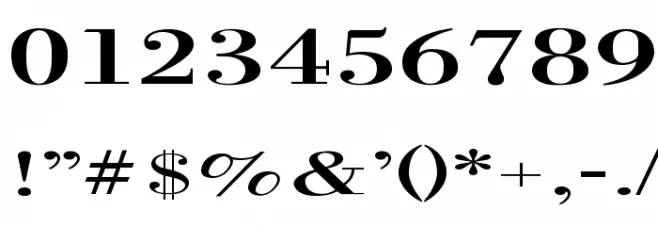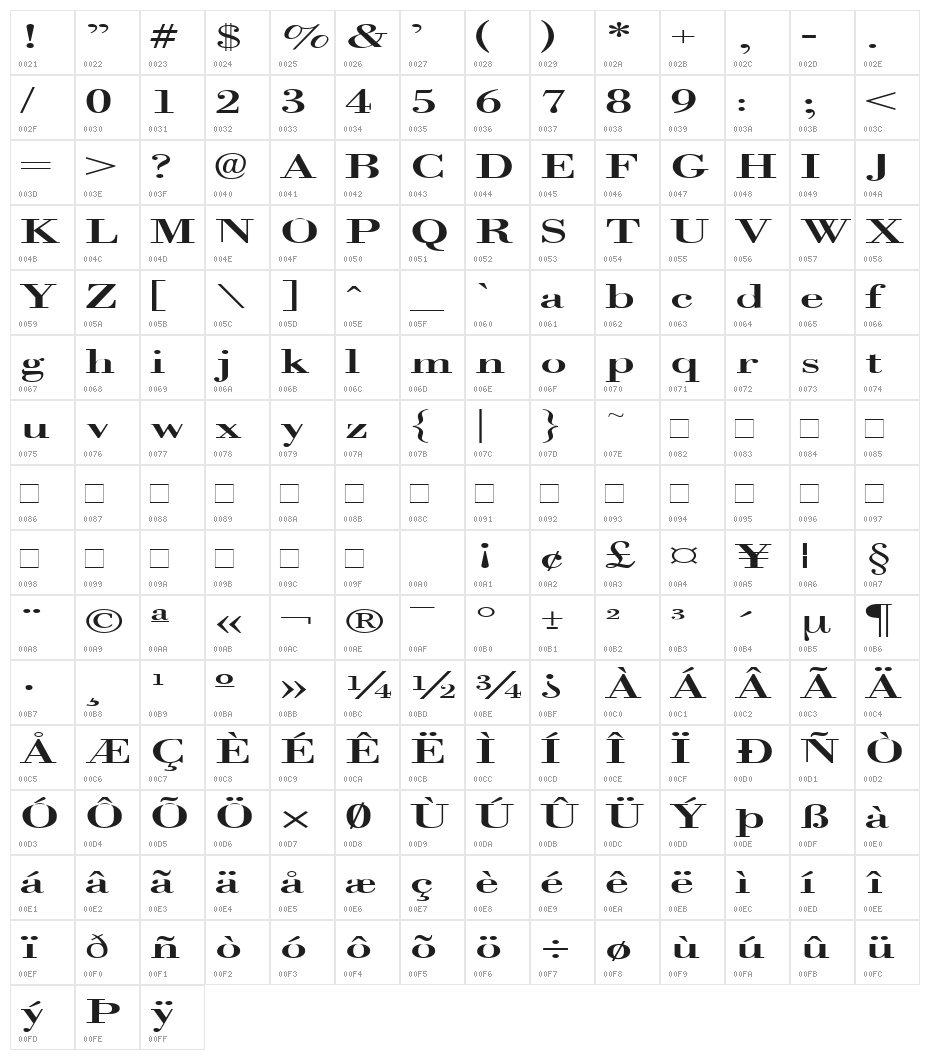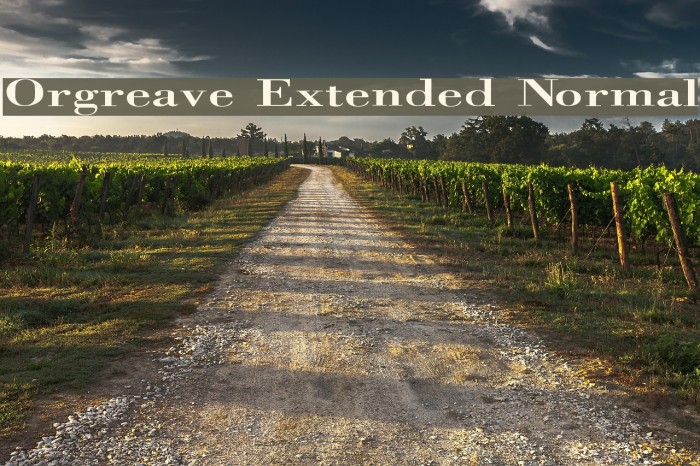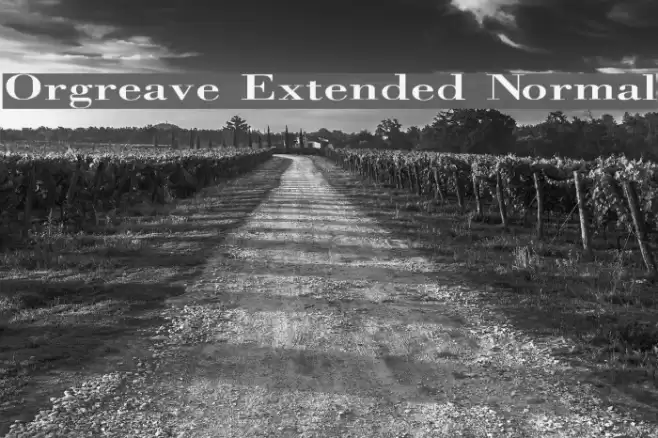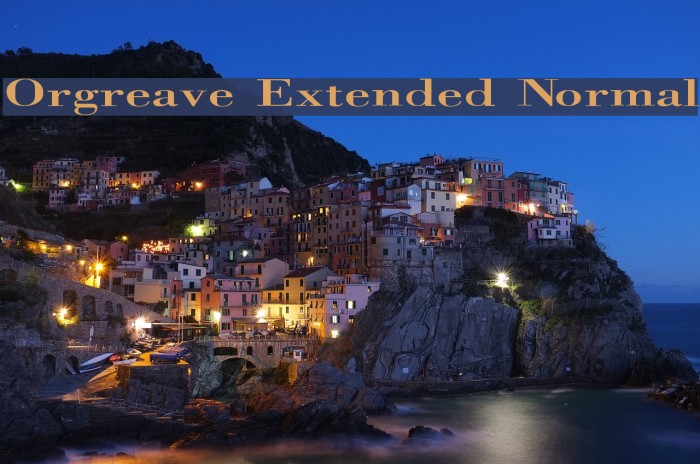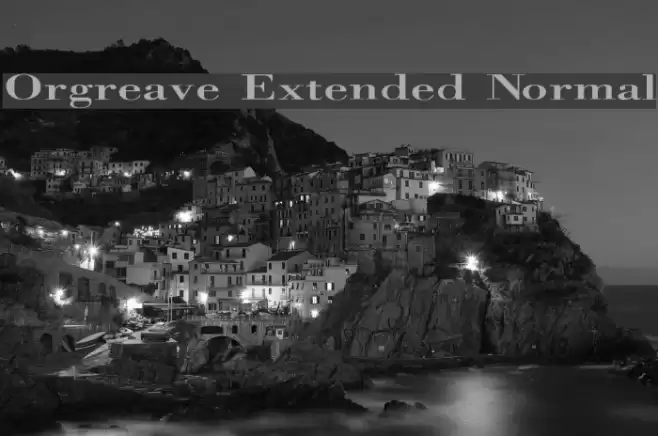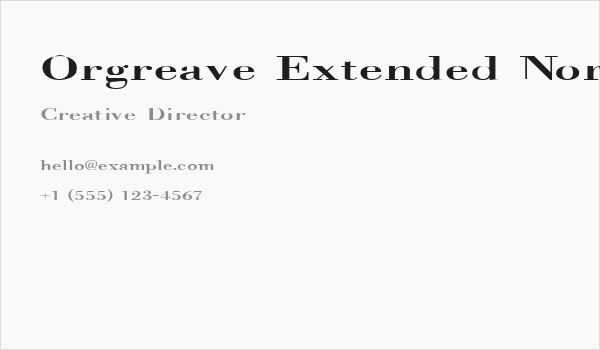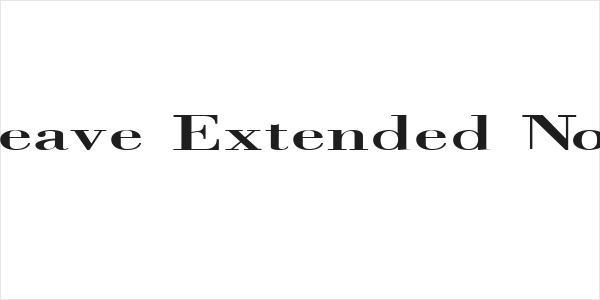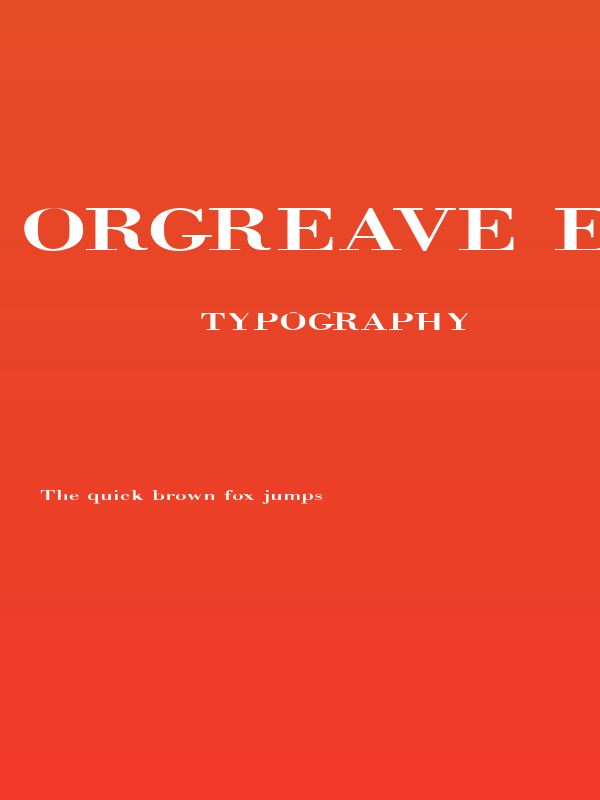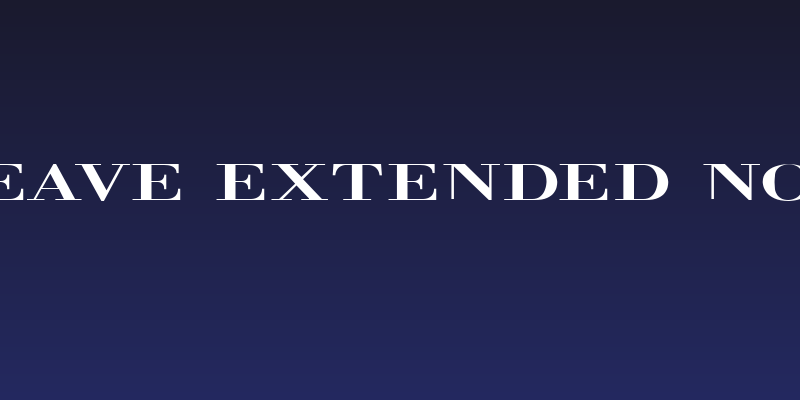
Orgreave Extended Normal Font
Orgreave Extended Normal Description
This font features a classic serif style with an extended width, providing a sense of elegance and sophistication. The uppercase letters are bold and commanding, while the lowercase letters maintain a balanced and readable form. The numerals are distinct and clear, making them suitable for various applications. Special characters are well-defined, adding versatility to the font's use. The overall design is reminiscent of traditional serif fonts but with a modern twist, making it suitable for both formal and contemporary projects.
| Proposed Projects | Ideal for editorial design, book covers, formal invitations, and branding projects that require a touch of sophistication. |